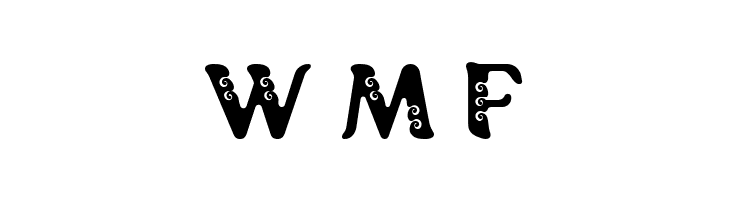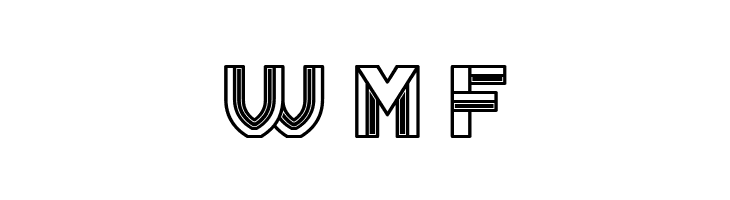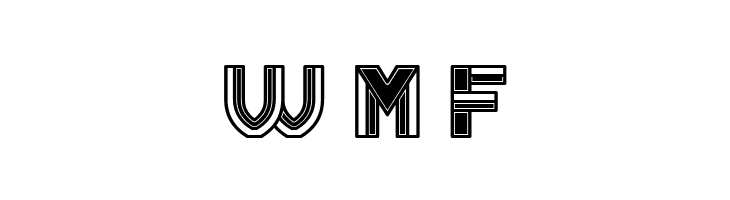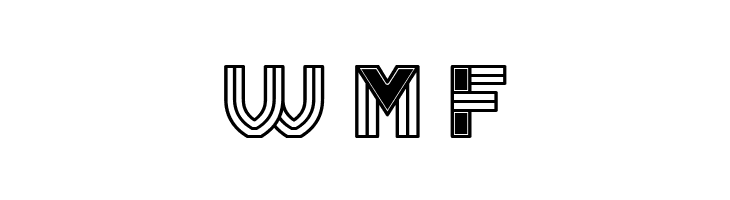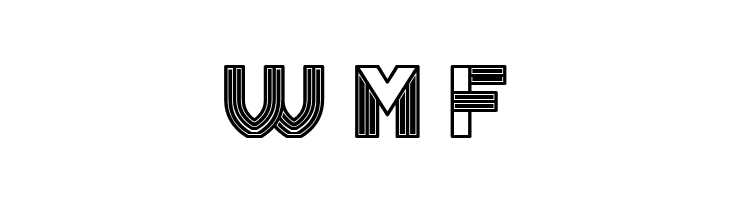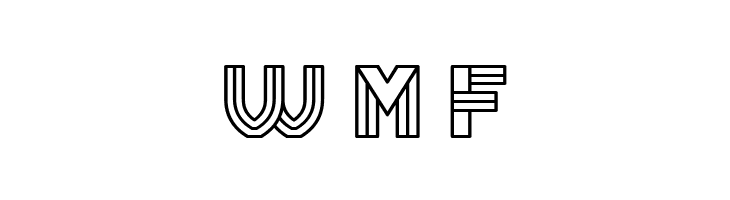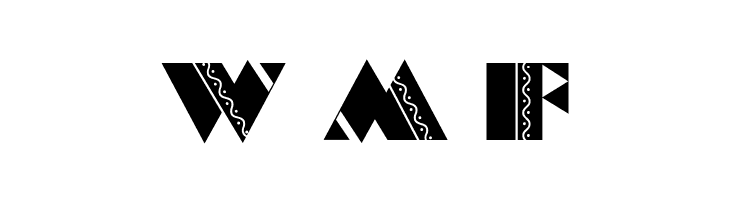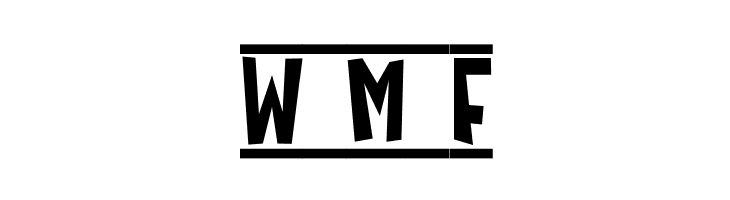
A bold, decorative font with geometric patterns and layered outlines.
A bold, geometric font with a three-dimensional layered effect, perfect for impactful designs.
A geometric, hollow font with a bold and modern design.
A bold, geometric font with layered, parallel lines creating depth.
A bold, geometric font with layered lines and a modern, decorative style.
A bold, angular font with a geometric and energetic style.
A bold, decorative font with intricate batik-inspired patterns.
A decorative font with intricate patterns and bold outlines.
A decorative font with intricate swirls and bold, rounded shapes inspired by traditional batik designs.
A decorative font with intricate batik-inspired patterns.